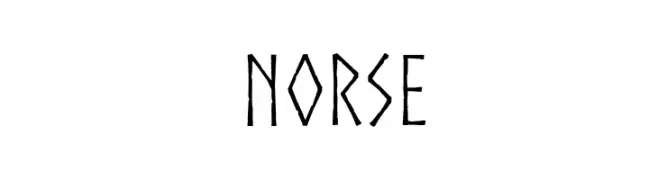
A bold, geometric font with rounded edges and a distinct outline, perfect for impactful designs.
A bold, modern sans-serif font with geometric precision and rounded edges.
A modern, geometric font with uniform stroke widths and a clean, minimalistic design.
A modern, geometric sans-serif font with clean lines and balanced proportions.
( Joël Carrouché - www.joelcarrouche.net )
An angular, runic-inspired font with sharp, straight lines and a historical feel.
( Joël Carrouché - www.joelcarrouche.net )
A bold, runic-inspired font with a rugged, historical aesthetic.
A bold, playful, hand-drawn font with an energetic and casual style.
A bold, playful, hand-drawn font with a cartoonish style.